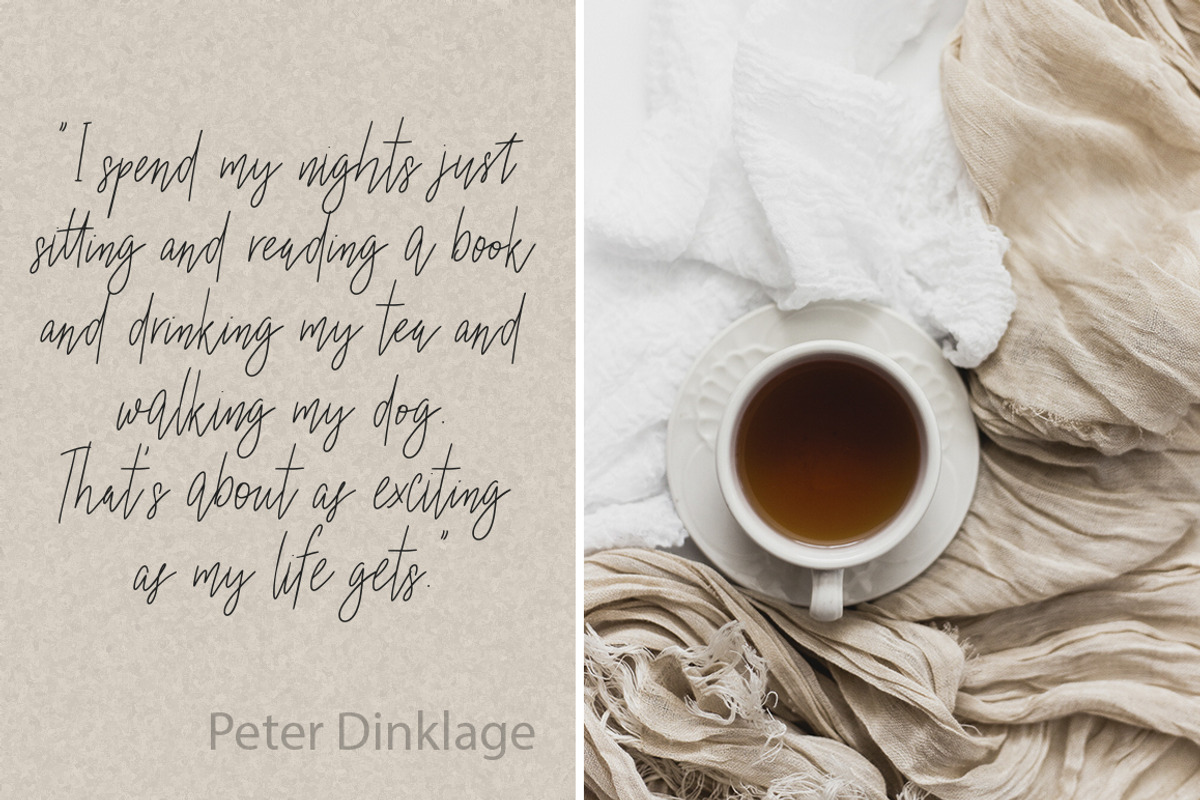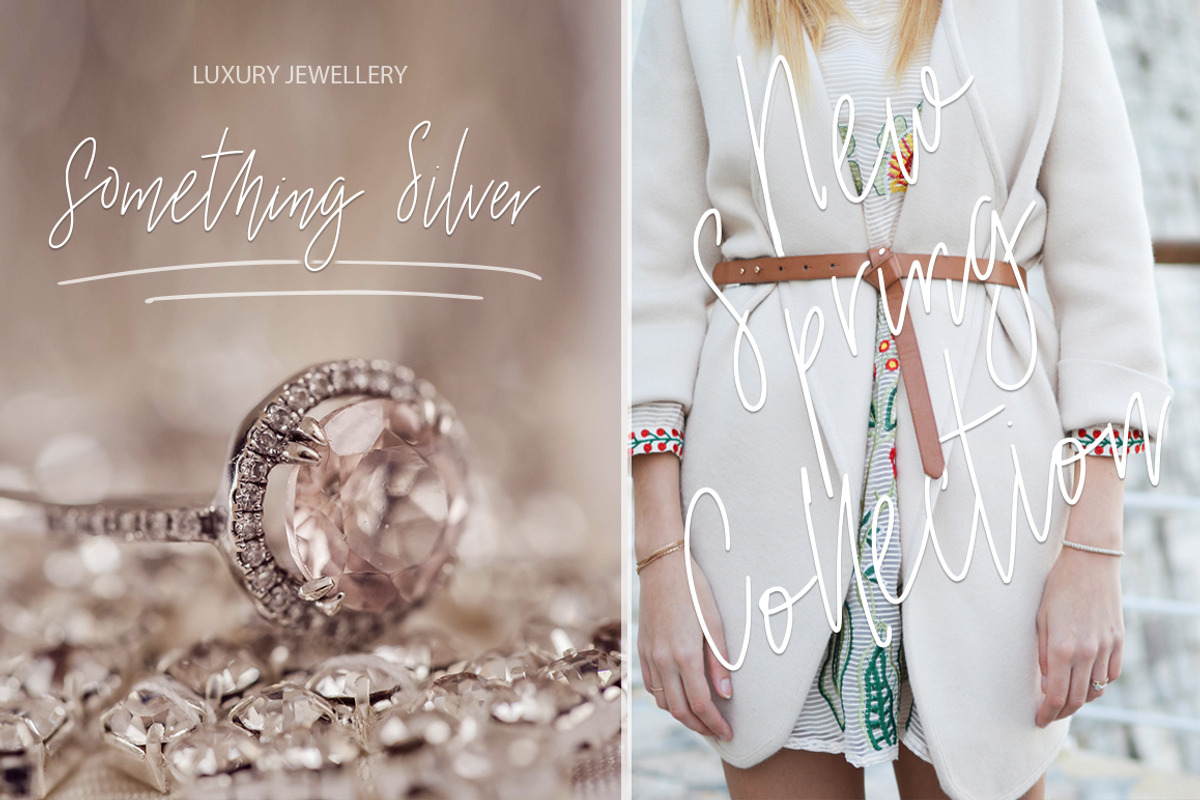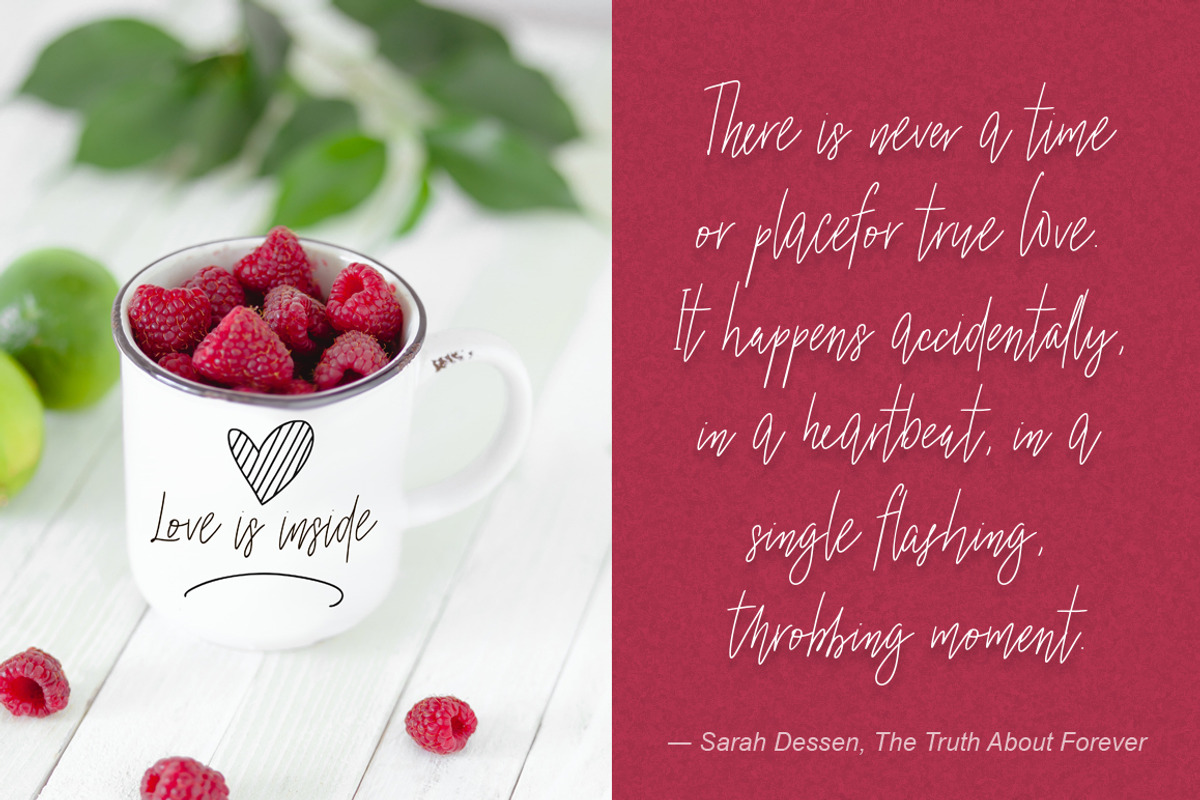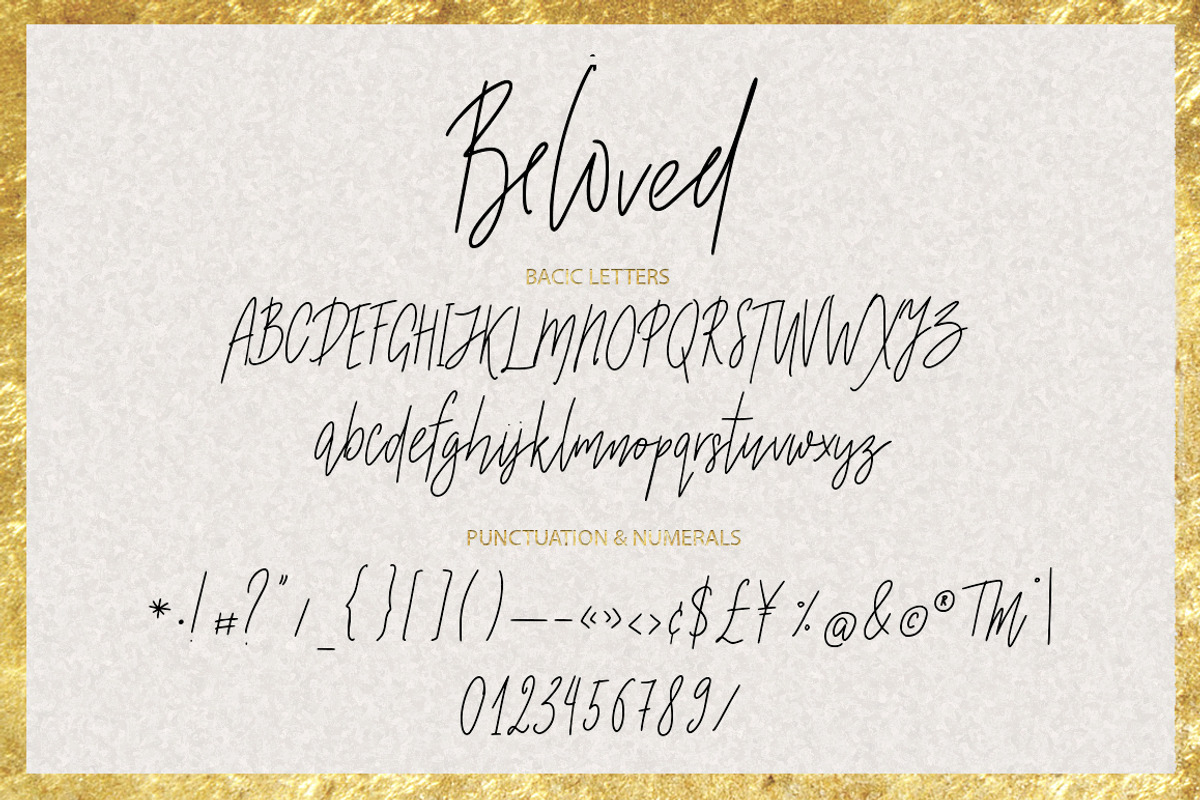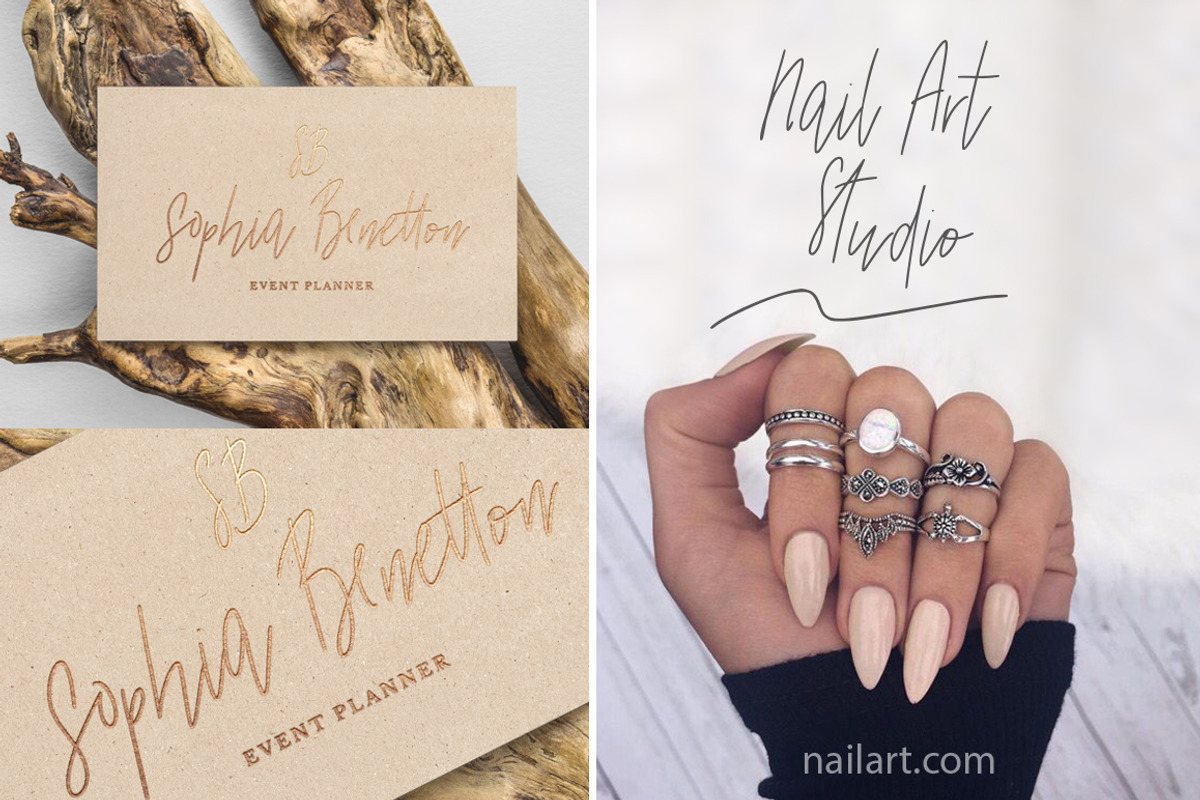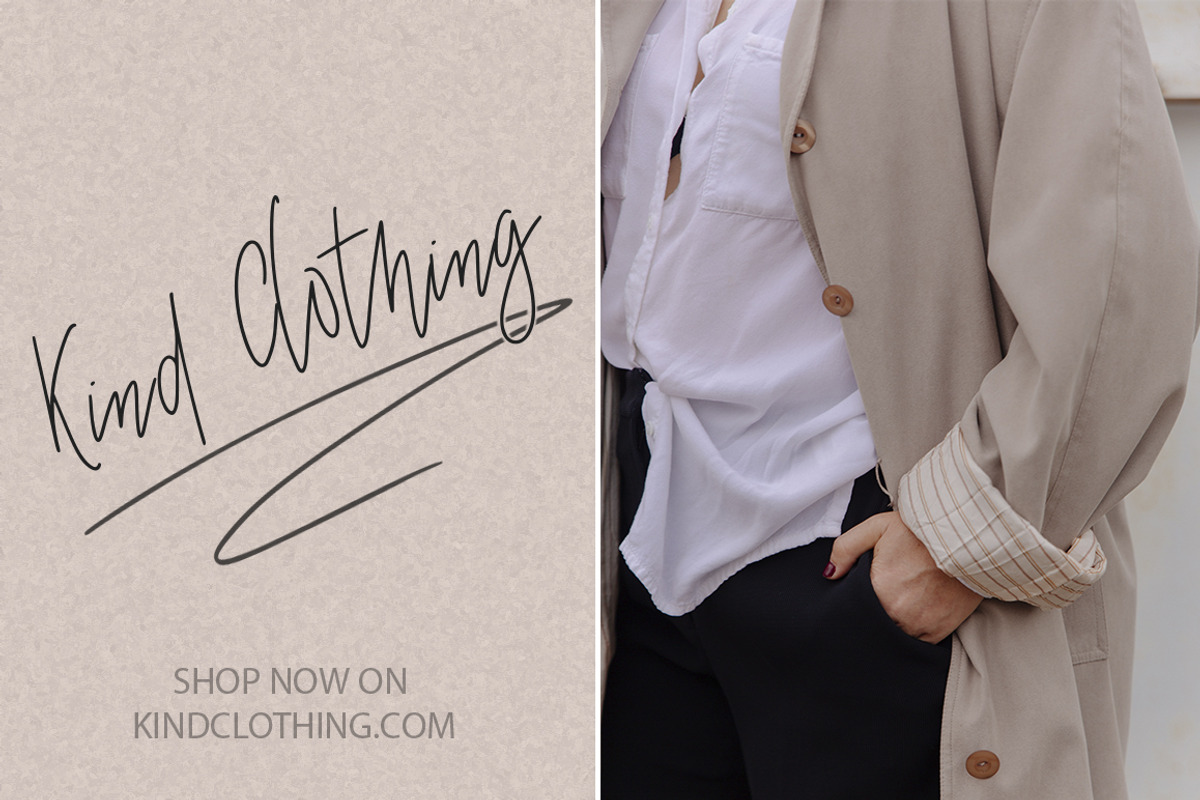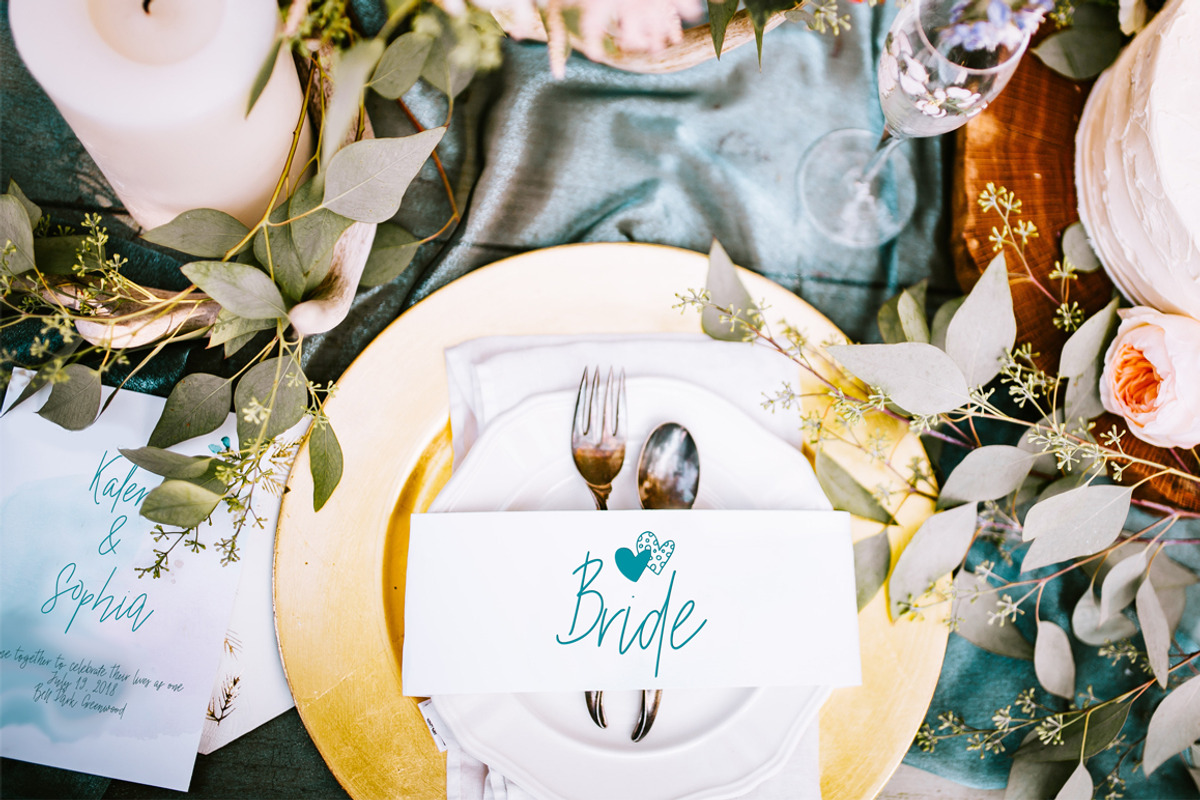
Beloved signature duo font.
BELOVED is a beautiful script signature font with an unique bouncy character. It is perfect for blogging, social media, branding, wedding invites and cards.
BELOVED includes full set of gorgeous uppercase and lowercase letters, numerals, a large range of punctuation and 36 ligatures, giving realistic hand-lettered style. You will also receive an additional font that includes 26 handdrawn extras, which can perfectly supplement the font and add some more personality to it.
You will also get 26 extras from BELOVED extra font like clipart.